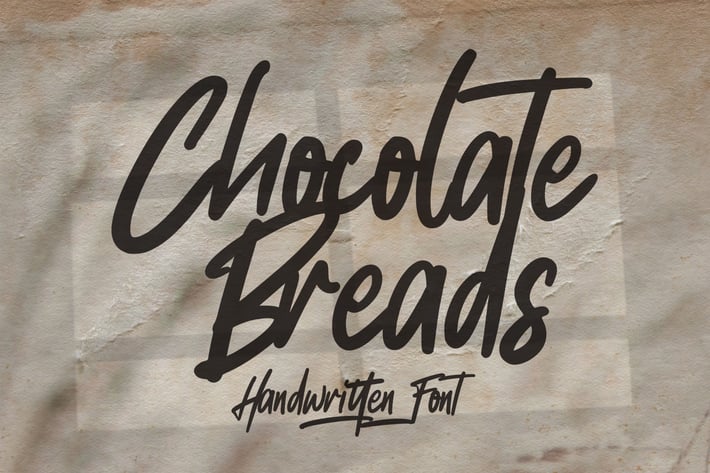
Chocolate Breads - Natural Brush Font
Chocolate Breads - Handwritten Brush font with a natural style and dramatic movement. Crafted manually with love and passion, This font is great for your next creative project such as logos, printed quotes, invitations, cards, product packaging, headers, Logotype, Letterhead, Poster, Label, and etc.